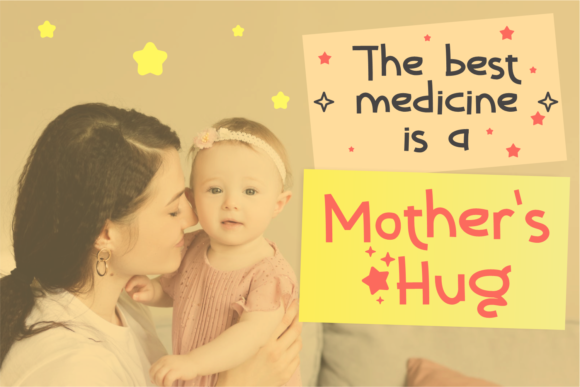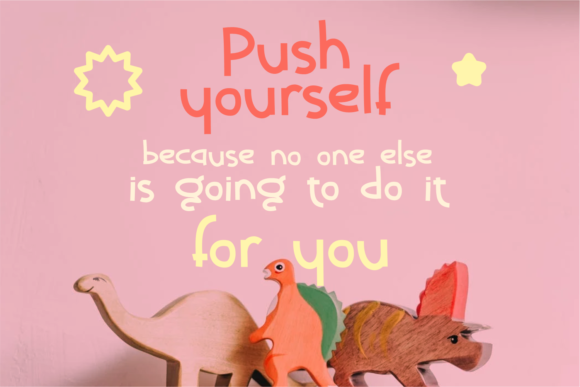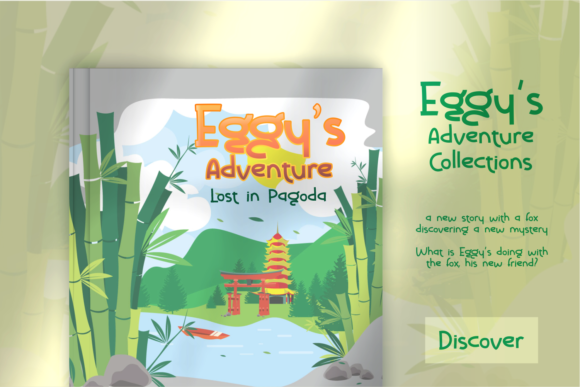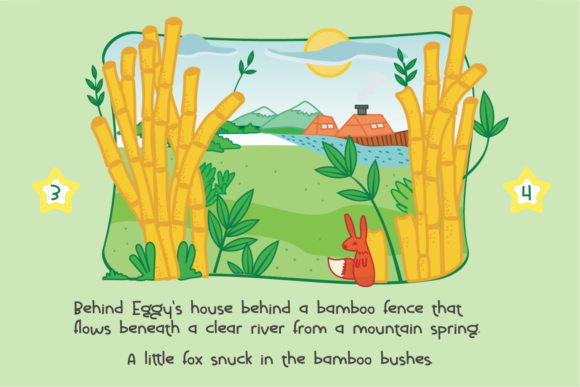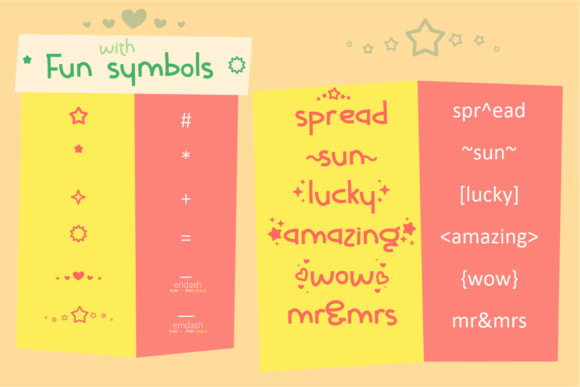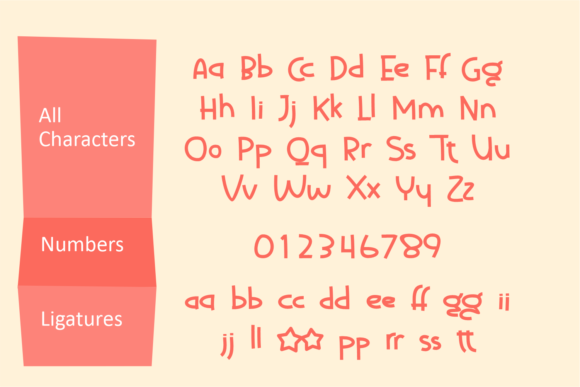
Introduction to Good Playmate Font
Good Playmate is a unique and cute display font.
It looks amazing on kids projects, happy moment decorations, baby births, children books and any other design that requires a happy mood Add this beautiful font to your creations and take your designs to the next level.
Key Features of Good Playmate Font
Why Choose Good Playmate Font?
Good Playmate Font offers exceptional quality and versatility, making it a valuable addition to your design toolkit. Whether you’re creating for personal projects or commercial use, Good Playmate Font delivers professional results.